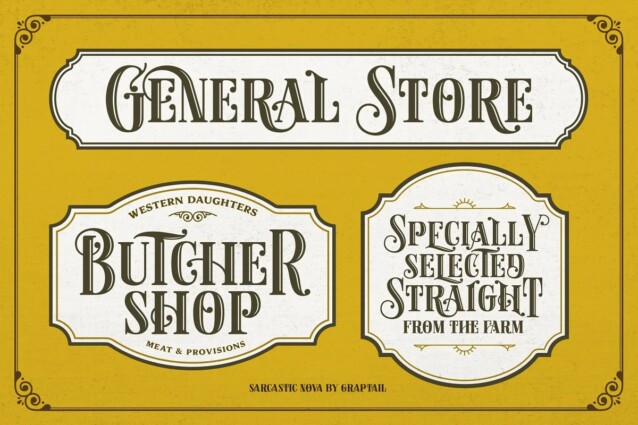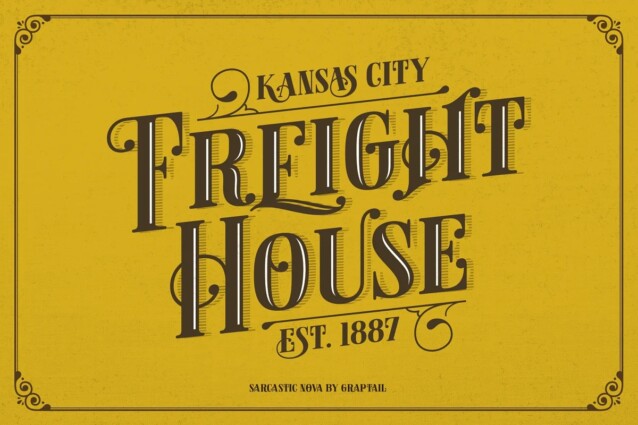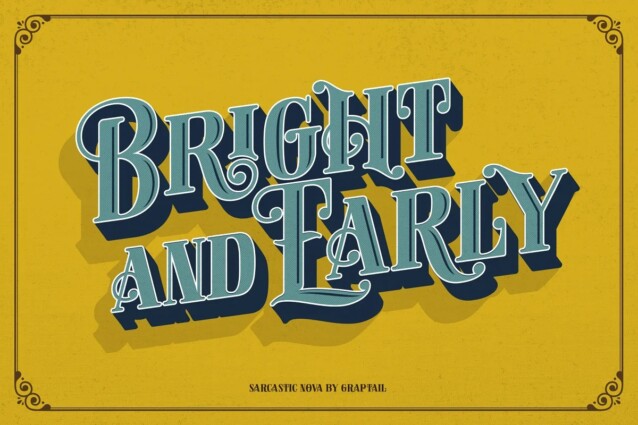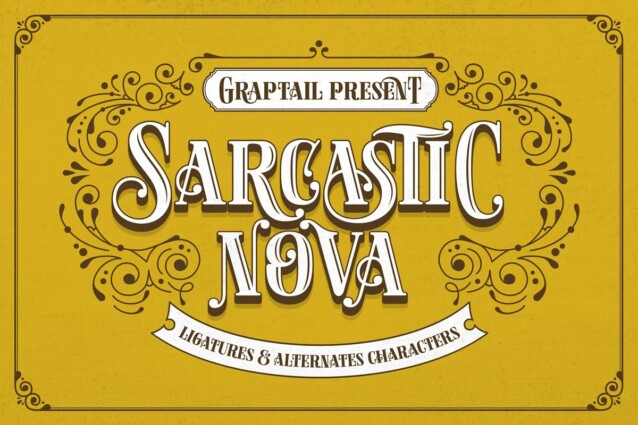
Sarcastic Nova Font
Sarcastic Nova Font is a uniquely elegant serif font designed by Graptail. This font is inspired by the classic shop sign. Sarcastic Nova comes with uppercase, lowercase, numerals, punctuations and so many variations on each characters include opentype alternates, common ligatures and also additional swash to let you customise your designs. Perfect to use for Logotype, Letterhead, Poster, Apparel Design, Label and etc.